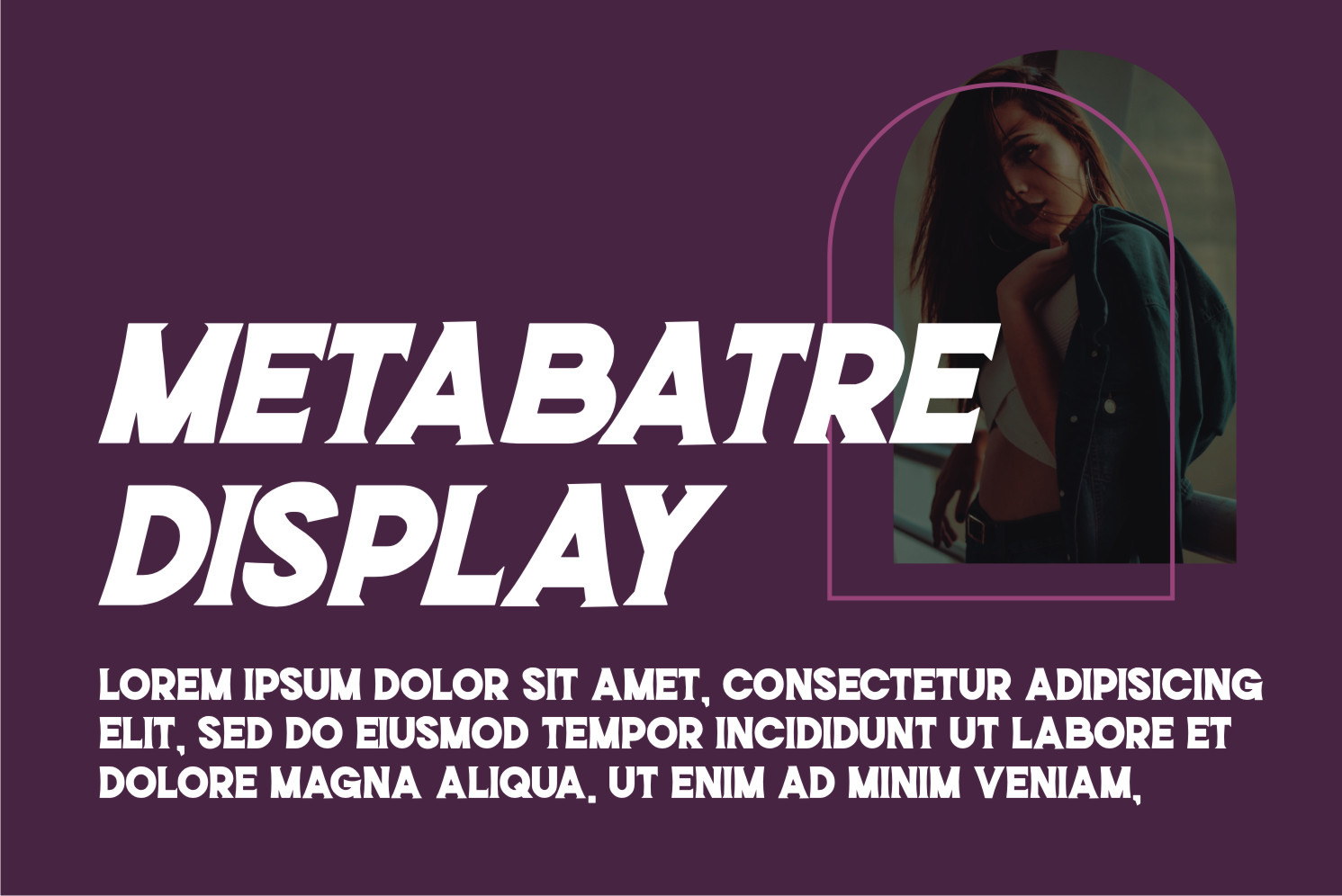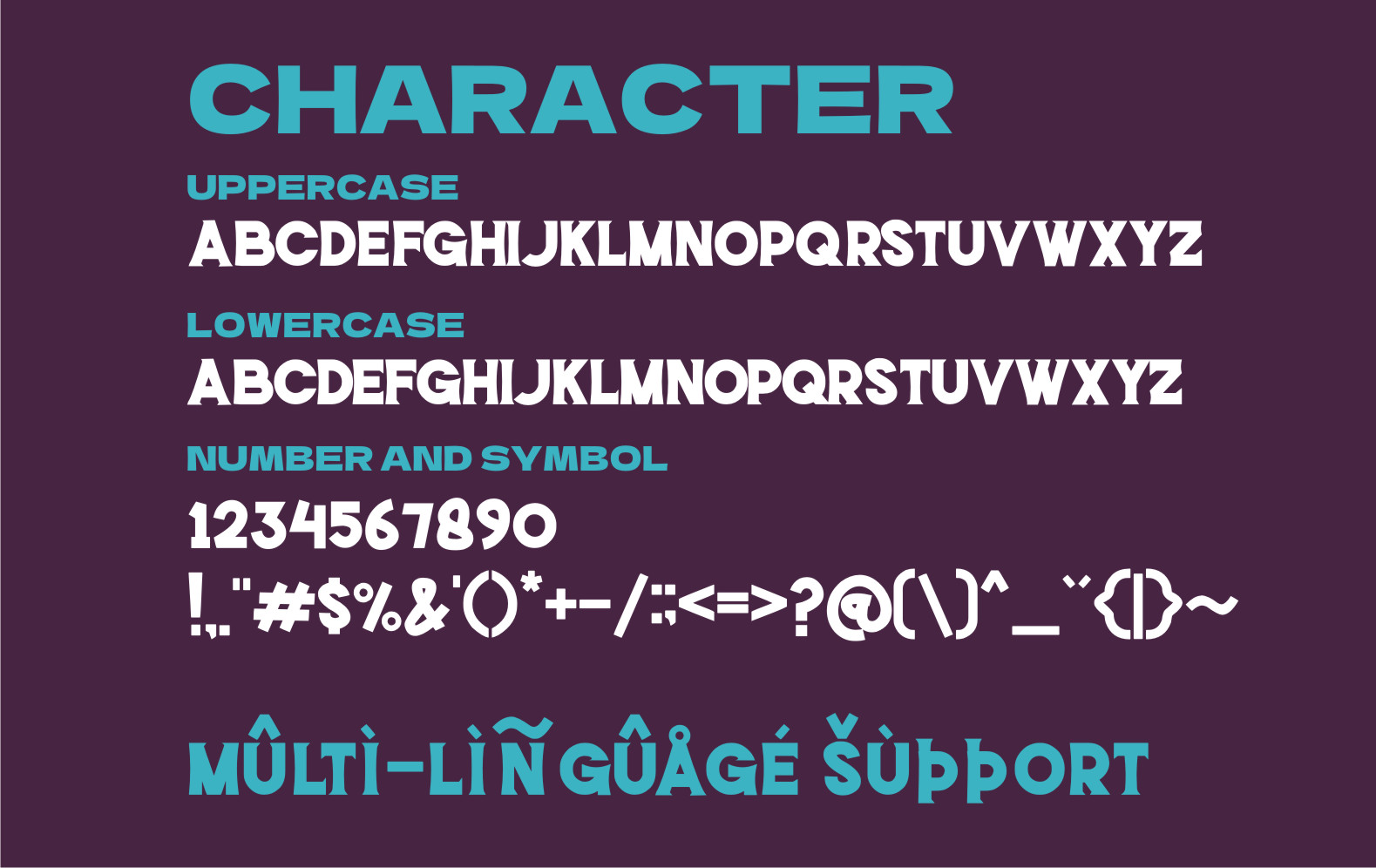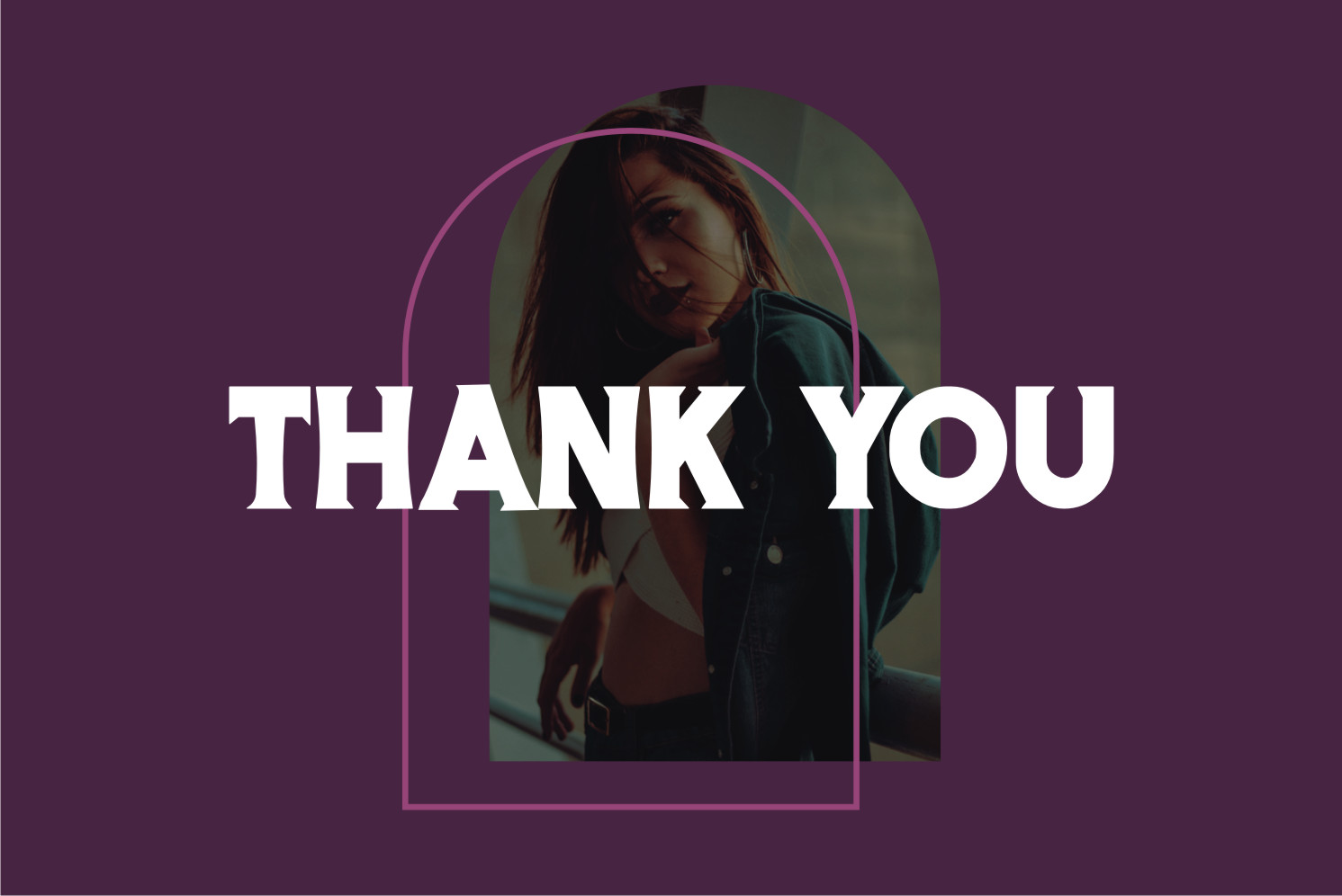
Mellotir Font
Mellotir Display Font
It’s a bold and distinct display font. This font is suitable for designs such as t-shirts, sportswear, logos, advertisements, clothing, and more.